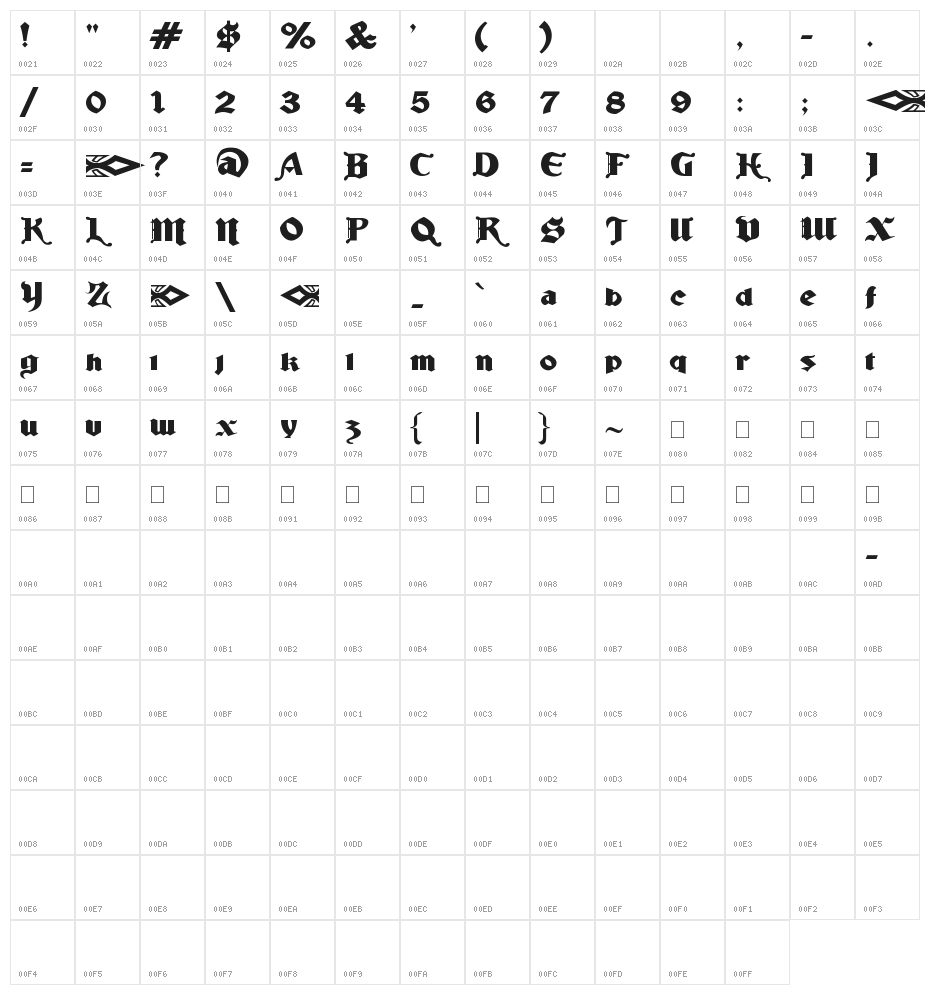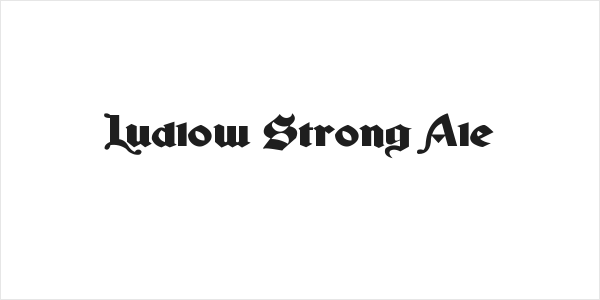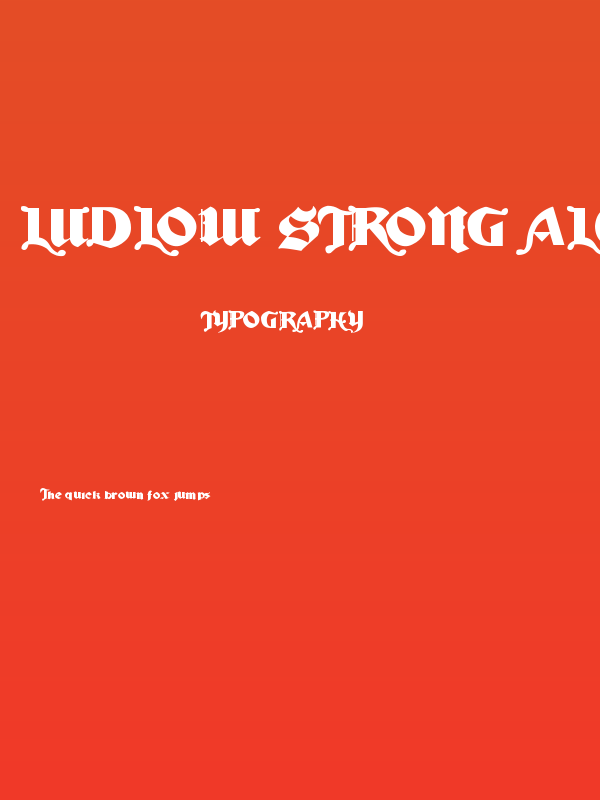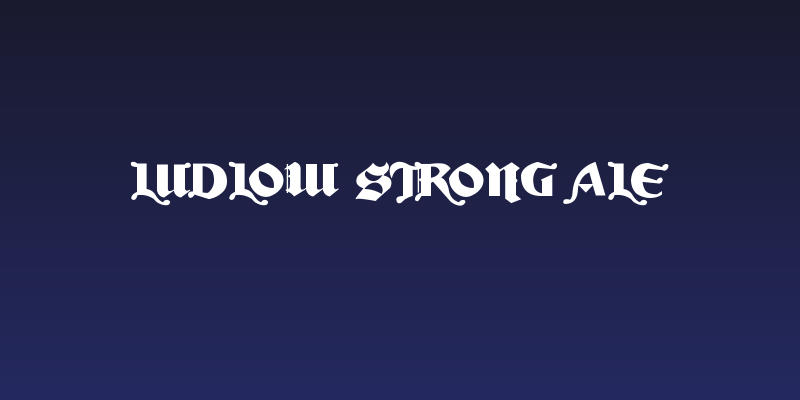
Ludlow Strong Ale Font
Ludlow Strong Ale Description
This font features a bold and dramatic style reminiscent of traditional blackletter typefaces. The characters are characterized by their thick, angular strokes and ornate detailing, which give them a strong, authoritative presence. The uppercase letters exhibit a gothic influence with sharp serifs and intricate curves, while the lowercase letters maintain a consistent weight and style. The numerals are equally bold, ensuring readability while maintaining the overall aesthetic. Special characters are designed to complement the letterforms, adding to the font's cohesive look. This font is ideal for projects that require a historical or medieval touch, offering a sense of tradition and gravitas.